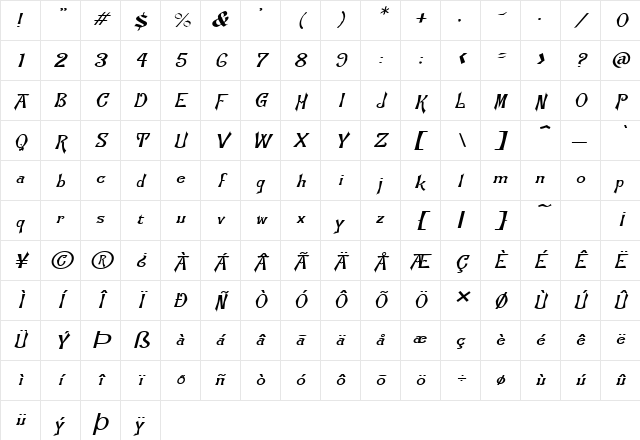
Manchuria-Extended Italic Free Font
Design Context for Manchuria-Extended
Manchuria-Extended is a composed and adaptable typeface that performs quietly and consistently across a wide range of design contexts. The slanted form adds forward momentum and visual energy.
Pro Tip: Use Manchuria-Extended for emphasis, pull quotes, and subheadings where its slanted energy can add rhythm to the layout.